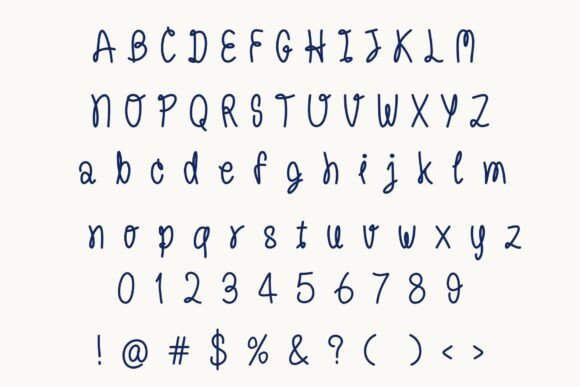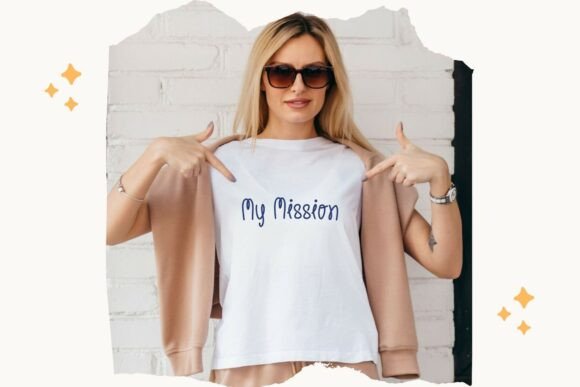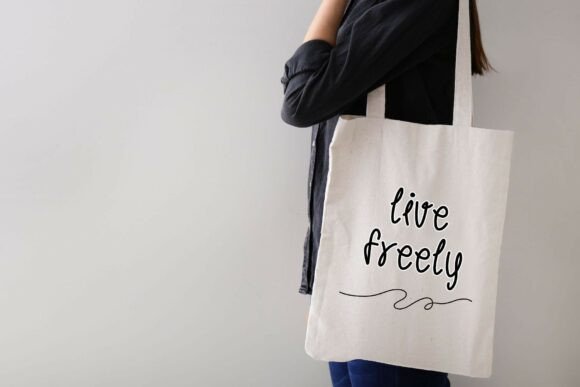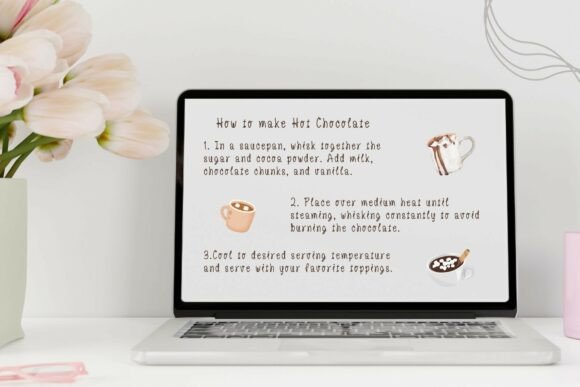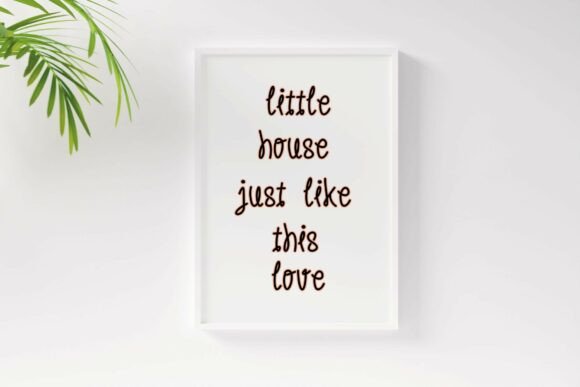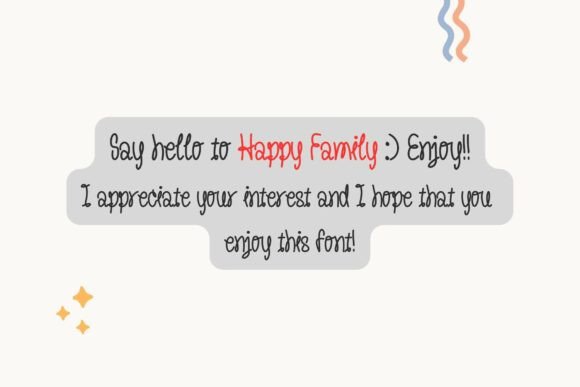
Introducing Happy Family Font: The Perfect Handwritten Style for Your Creative Projects
Are you a designer, crafter, or DIY enthusiast looking for a unique and versatile font to elevate your creative projects? Look no further than Happy Family Font, a beautiful handwritten font designed for commercial and personal use. In this article, we’ll explore the features and benefits of Happy Family Font, and how it can be used to add a personal touch to your digital and print projects.
What is Happy Family Font?
Happy Family Font is a carefully crafted handwritten font that exudes warmth and personality. Its simple yet elegant design makes it perfectly suitable for a wide range of applications, from digital note-taking and planners to quotations, banners, logos, product packaging, titles, headers, and menu lists. Whether you’re creating digital content or print materials, Happy Family Font is the perfect choice for adding a touch of whimsy and charm.
Key Features of Happy Family Font
• Handwritten style: Happy Family Font boasts a beautiful, handwritten style that’s perfect for adding a personal touch to your projects.
• Simple and elegant design: The font’s simple yet elegant design makes it easy to read and versatile enough to use in various contexts.
• Wide range of applications: Happy Family Font is suitable for digital note-taking, digital planners, quotations, banners, logos, product packaging, titles, headers, menu lists, and more.
Benefits of Using Happy Family Font
So, why choose Happy Family Font for your creative projects? Here are just a few benefits of using this amazing font:
• Adds a personal touch: Happy Family Font adds a warm and personal touch to your projects, making them stand out from the crowd.
• Enhances creativity: The font’s unique and playful design inspires creativity and can help you think outside the box.
• Versatile: Happy Family Font is versatile enough to use in various contexts, from digital content to print materials.
• Easy to read: The font’s simple and elegant design makes it easy to read, even in small sizes.
How to Use Happy Family Font
Using Happy Family Font is easy! Here are a few ways you can incorporate this beautiful font into your creative projects:
• Digital note-taking: Add a personal touch to your digital notes and journals with Happy Family Font.
• Digital planners: Use Happy Family Font to create beautiful and functional digital planners.
• Quotations and posters: Add a touch of elegance to your quotations and posters with Happy Family Font.
• Logos and branding: Use Happy Family Font to create unique and memorable logos and branding materials.
• Product packaging: Add a personal touch to your product packaging with Happy Family Font.
In conclusion, Happy Family Font is a beautiful and versatile handwritten font that’s perfect for designers, crafters, and DIY enthusiasts. Its simple yet elegant design makes it suitable for a wide range of applications, from digital note-taking and planners to quotations, banners, logos, product packaging, titles, headers, and menu lists. With its commercial and personal use license, you can use Happy Family Font to elevate your creative projects and add a personal touch that sets them apart.